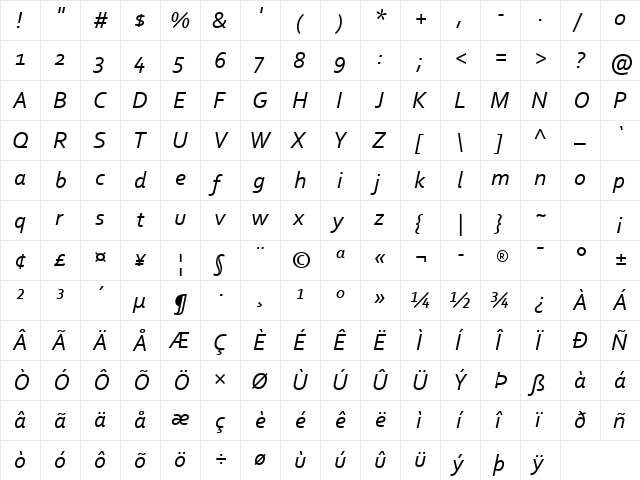
Corbel Italic
Design Context for Corbel Typeface
Corbel is a composed and adaptable typeface that performs quietly and consistently across a wide range of design contexts. The dynamic lean of this cut emphasises speed and emphasis in any layout.
Pro Tip: Use Corbel for emphasis, pull quotes, and subheadings where its slanted energy can add rhythm to the layout.